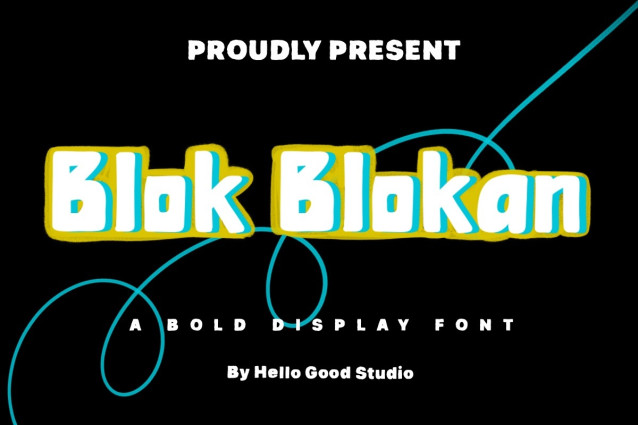
Blok Blokan Font
Blok Blokan Font is a chunky, comic, and cartoon display font. With its neat and joyful personality, this font will enhance any project you wish to create!